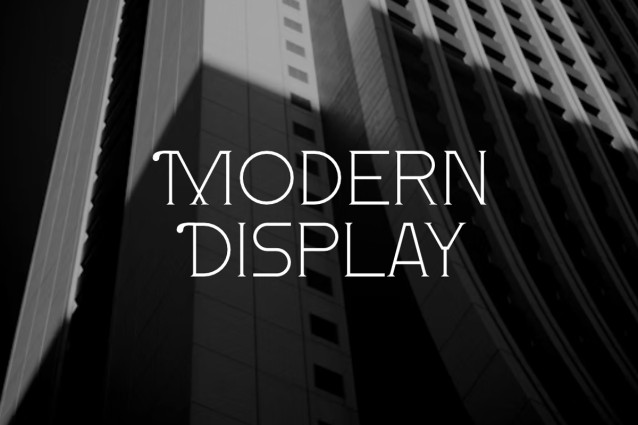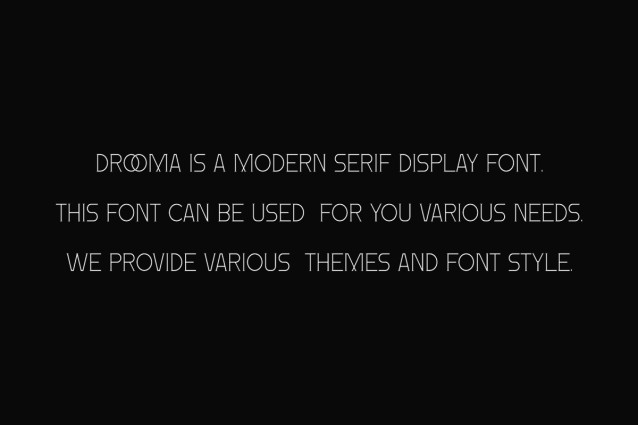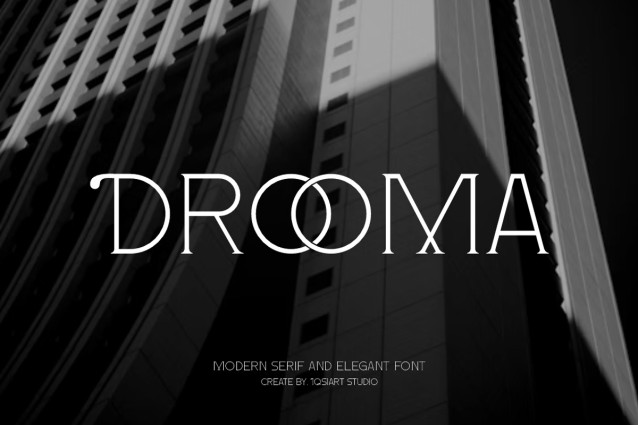
Drooma Font
Drooma Font is a best and authentic display font. This font can be used for your various needs. We provide various themes and font styles. visit our profile to get a wide variety of themes and different font styles you need.